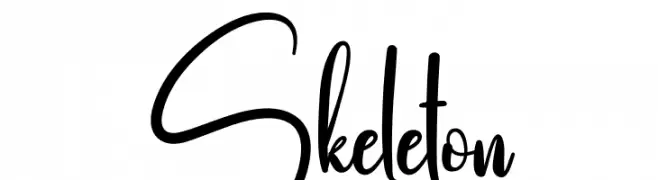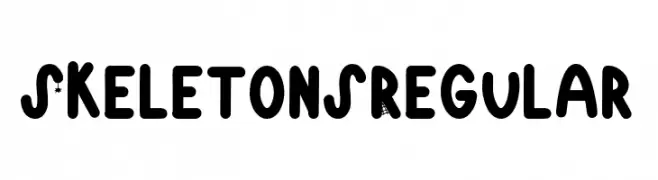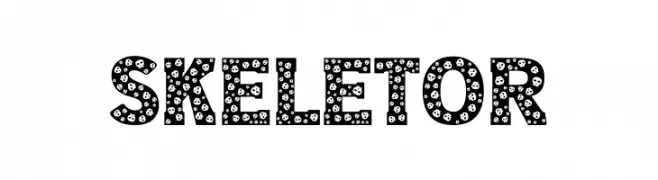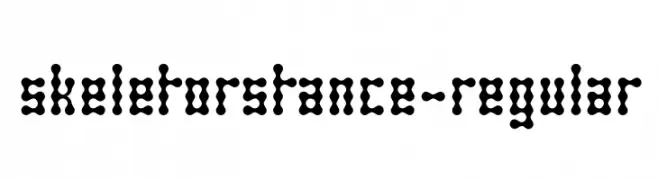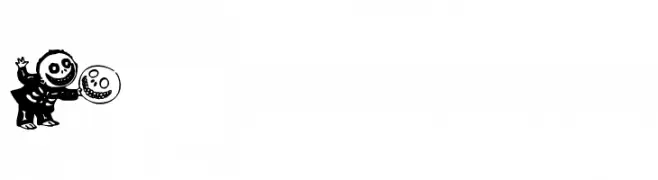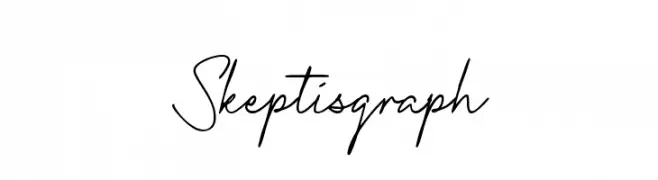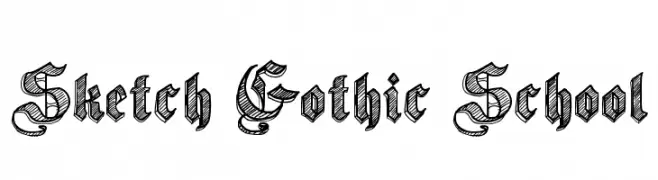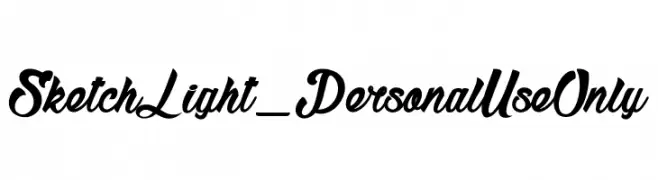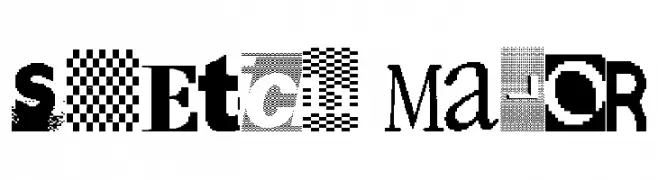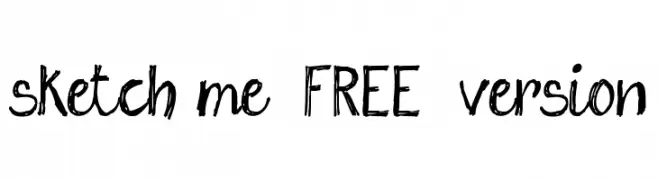
A dynamic and expressive handwritten font with fluid, cursive strokes.
A hand-drawn, sketch-like font with an edgy, skeletal appearance.
A playful, Halloween-themed decorative font with spooky elements.
A Halloween-themed decorative font with playful, spooky elements.
A bold, decorative font filled with skull illustrations, perfect for spooky themes.
A bold, playful font with interconnected, bubble-like characters.
A playful, bold font with rounded, bubble-like forms and consistent thickness.
A bold, Gothic-style font with sharp, angular lines and intricate details.
A bold, gothic-inspired font with a strong, medieval aesthetic.
A spooky, hand-drawn font with jagged, elongated characters.
A dynamic and fluid script font with elegant, flowing letterforms.
A whimsical and playful font with cartoonish creature-like characters.
A fluid and elegant handwritten font with smooth, flowing lines.
A bold, brush-style script font with dynamic, textured strokes.
A bold, sketch-style font with a hand-drawn, textured appearance.
A playful, sketch-like font with bold, textured characters.
A bold, sketch-like Gothic font with intricate, hand-drawn details.
A dynamic and flowing script font with elegant cursive letterforms.
A creative and eclectic display font with unique patterns and textures for each character.
A playful, hand-drawn font with a sketch-like appearance.
A bold, sketch-style font with a hand-drawn, textured appearance.
A sketch-style serif font with a hand-drawn, textured appearance.
A bold, sketch-like handwritten font with dynamic strokes and artistic flair.
A bold, sketch-like handwritten font with dynamic strokes.
A playful, sketch-style font with bold outlines and diagonal hatching.
A bold, brush-style script font with dynamic strokes and elegant curves.
A playful, hand-drawn font with bold, irregular strokes and a casual aesthetic.
A bold, hand-drawn font with a playful and energetic style.
A playful, stick-figure inspired font with dynamic and expressive characters.
A hand-drawn, sketch-style font with textured, irregular strokes.